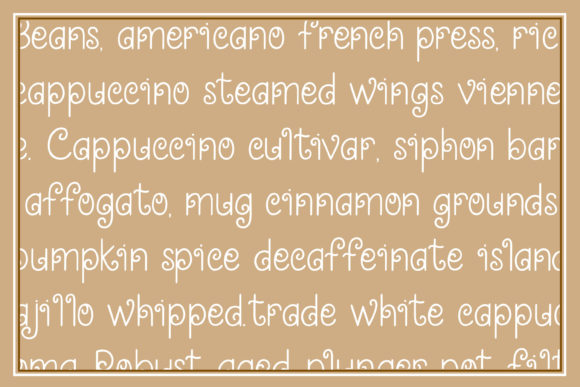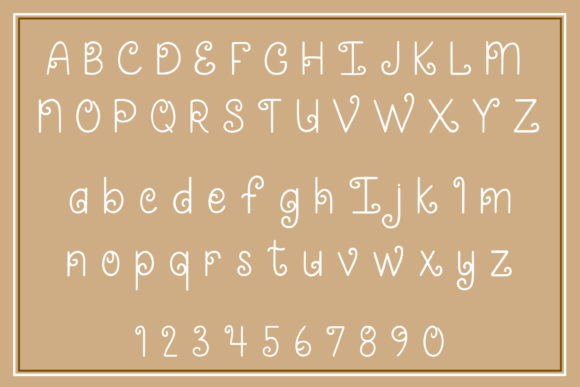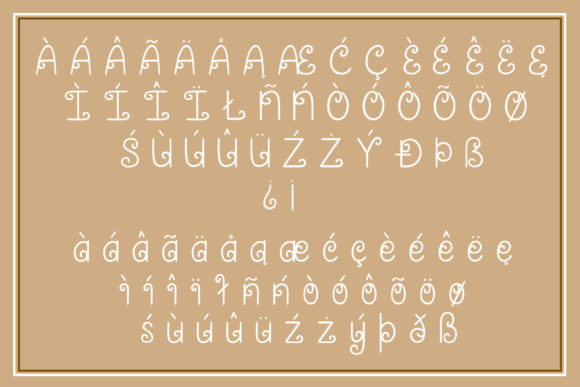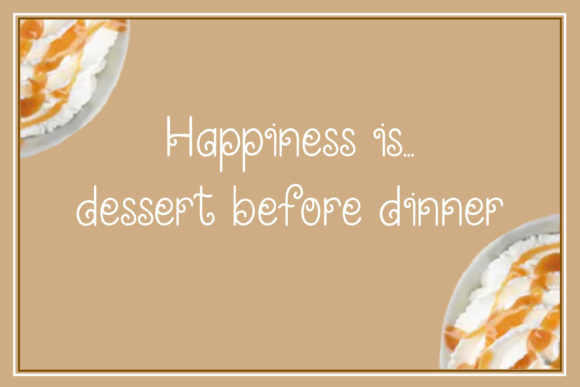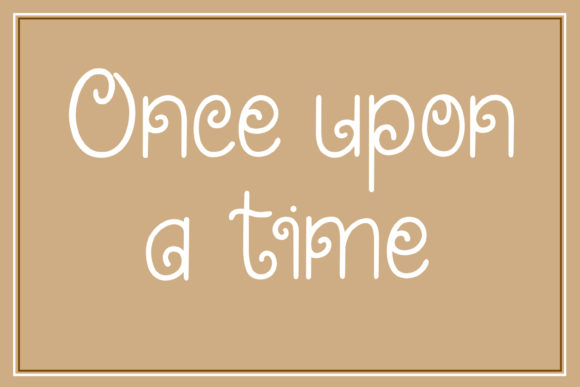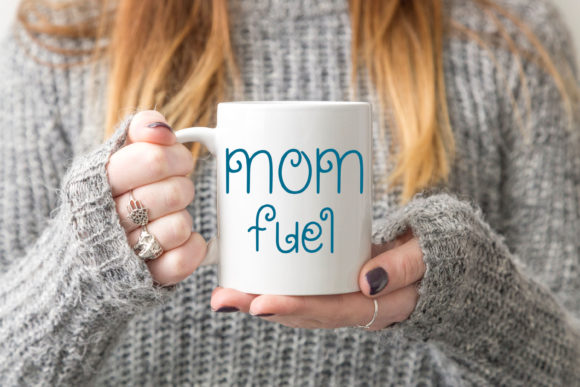
Adding a Touch of Sweet Magic to Your Designs
Remember that moment when you stumbled upon the perfect font to elevate your design project? The one that made everything fall into place, and you just knew it was meant to be? For many of us, that moment is what drives our creative journey, and it’s exactly what the Caramel Swirl Font can bring to your next project.
Imagine a font that captures the whimsy and playfulness of a sweet treat, transporting your audience to a world of wonder and enchantment. That’s exactly what the Caramel Swirl Font is all about – a fun and swirly handwritten font that adds a touch of magic to any design. Whether you’re working on a birthday invitation, a blog post, or a social media campaign, this font is sure to make your design stand out.
Caramel Swirl Font Key Features
- Unique Characteristics: Distinctive, swirly design with a caramel-inspired color scheme
- Font Style: Script, Cursive, and Display font styles available
Caramel Swirl Font Review
I’ve had the chance to work with the Caramel Swirl Font, and I have to say, it’s a unique and intriguing addition to any design project. ✨ Here are some of its standout features:
- Unique Whimsy**: Caramel Swirl has a distinctive, hand-drawn feel that adds a touch of personality to any design.
- High Legibility**: Despite its quirky appearance, the font is surprisingly easy to read, even at smaller sizes.
- Wide Character Set**: Caramel Swirl includes a comprehensive set of characters, including punctuation and symbols.
- Limited Style Options**: While the font itself is versatile, it doesn’t come with a wide range of style options or variations.
- Not Ideal for Small Text**: While Caramel Swirl is legible at larger sizes, it can become difficult to read at smaller sizes due to its unique characteristics.
Overall, Caramel Swirl is a great choice for designers who want to add a touch of personality and whimsy to their projects. It’s perfect for titles, headings, and other text elements where a unique feel is desired. Just be mindful of its limitations, and you’ll be able to get the most out of this charming font.
The Caramel Swirl Font is ideal for:
- Creating eye-catching titles and headings.
- Designing custom typography elements and logos.
- Adding a touch of elegance to presentations and documents.
Alternatives to Caramel Swirl Font
Great Vibes is a beautiful, elegant script font perfect for creating a romantic and whimsical atmosphere. It features a mix of classic and modern elements, making it suitable for a wide range of designs, from wedding invitations to fashion magazines. Great Vibes is similar to Caramel Swirl Font in its flowing and organic feel, but it has a more refined and sophisticated appearance.
Alex Brush is a stunning, hand-drawn script font that exudes a sense of luxury and sophistication. It’s ideal for high-end branding, fashion, and lifestyle designs. Compared to Caramel Swirl Font, Alex Brush has a more polished and refined appearance, making it suitable for more formal and professional applications.
Carolyna Pro is a modern, elegant script font that features a mix of classic and modern elements. It’s perfect for creating a sophisticated and luxurious atmosphere, making it suitable for high-end branding, fashion, and lifestyle designs. Carolyna Pro has a more refined and modern appearance compared to Caramel Swirl Font, with a focus on clean lines and geometric shapes.
Playfair Display is a stunning, luxurious script font that exudes a sense of opulence and sophistication. It’s ideal for high-end branding, fashion, and lifestyle designs. Compared to Caramel Swirl Font, Playfair Display has a more dramatic and extravagant appearance, making it suitable for more formal and professional applications where a touch of luxury is required.